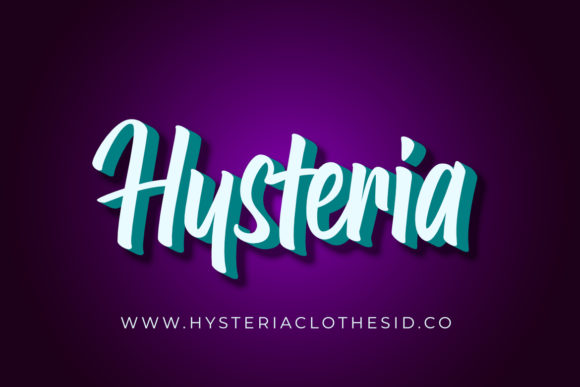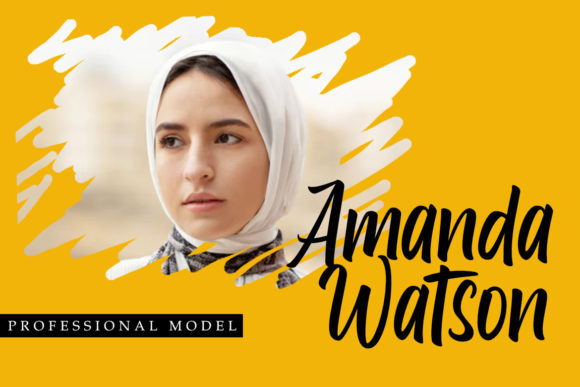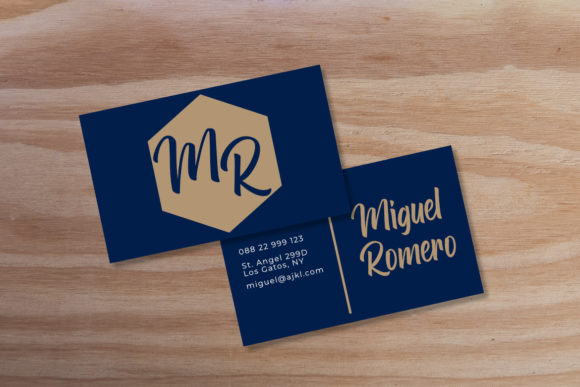
About Berkah Ramadhan Font
Berkah Ramadhan is a captivating handwritten font that emanates an authentic and heartfelt vibe. With its unique and genuine feel, this font is a perfect choice for various design projects, including logos, branding, product packaging, and more. Let Berkah Ramadhan font elevate your designs with its distinctive charm and personality.
The charm of Berkah Ramadhan font lies in its handcrafted and organic appearance. Each letter carries a sense of authenticity, as if it were meticulously written by hand. Its irregular strokes and subtle imperfections add character and depth, making it a standout choice for designs that require a personal touch.
Logos benefit greatly from the authentic feel of Berkah Ramadhan font. Its handwritten style helps create a strong visual identity that resonates with your audience. Whether you’re designing a logo for a small business, a creative project, or an event, Berkah Ramadhan font adds a touch of warmth and uniqueness, setting your brand apart from the competition.
Branding materials come to life with Berkah Ramadhan font. Its genuine and organic feel enhances the overall look and feel of your brand. From business cards and stationery to promotional materials and social media graphics, Berkah Ramadhan font adds a sense of personalization and authenticity, fostering a deeper connection with your target audience.
Product packaging also benefits from the charm of Berkah Ramadhan font. Its handwritten style brings a human touch to your packaging design, making it more relatable and appealing to customers. Whether you’re designing labels, tags, or product descriptions, Berkah Ramadhan font adds an authentic and inviting feel, enhancing the overall appeal of your products.
Moreover, Berkah Ramadhan font’s versatility allows it to be used in various design contexts. Its genuine and organic letterforms make it suitable for a wide range of projects, including invitations, quotes, posters, social media graphics, and more. Let your creativity flow and explore the possibilities of Berkah Ramadhan font in bringing a unique and personalized touch to your designs.
In addition to its aesthetic appeal, Berkah Ramadhan font is optimized for search engines (SEO). Its clean and legible design contributes to better readability and accessibility, which can positively impact your website’s search engine rankings. Pairing Berkah Ramadhan font with high-quality content and relevant keywords can help improve your online visibility and drive organic traffic to your website.
In summary, Berkah Ramadhan is an authentic and captivating handwritten font that adds a personal touch to your designs. Its versatility makes it suitable for logos, branding, product packaging, invitations, quotes, and more. With Berkah Ramadhan font, you can create visually appealing designs that evoke emotions, foster connections, and leave a lasting impression on your audience.